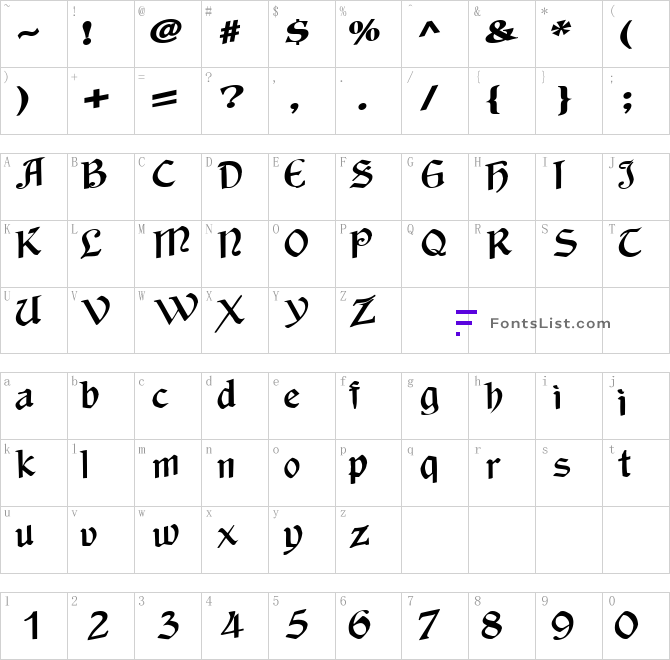
- Font Name:AgainstTheWind49
AgainstTheWind49-Bold.ttf is a very beautiful artistic font, AgainstTheWind49-Bold.ttf is widely used in the design and printing of various books and pictures,AgainstTheWind49-Bold.ttf has a strong visual impact,AgainstTheWind49-Bold.ttf is a commonly used font in newspapers, magazines and books, and is used in posters, e-commerce Poster design, store design, logo design, font design and other fields.AgainstTheWind49-Bold.